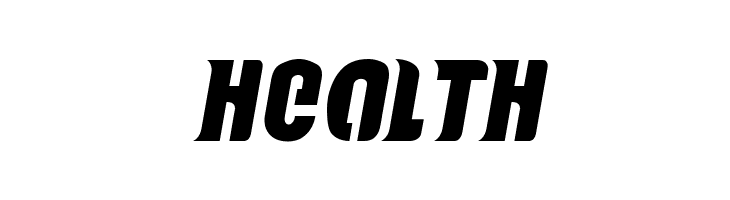
A bold, modern font with clean lines and a balanced structure, perfect for impactful designs.
( Aaron Amar - www.behance.net/aaronamar )
A bold, impactful typeface with thick, solid strokes and a geometric design.
( Alexander Pravdin )
A bold, modern sans-serif font with thick, uniform strokes.
( Alexander Pravdin )
A bold, condensed sans-serif font with a modern and impactful style.
( Alexander Pravdin )
A bold, condensed font with strong, uniform strokes for impactful design.
( Alexander Pravdin )
A bold, condensed font perfect for impactful headlines.
( Alexander Pravdin )
A bold, condensed font with heavy strokes for impactful designs.
( Amy Reynolds - amyreynolds.ca )
A bold, dynamic font with slanted characters and thick strokes.